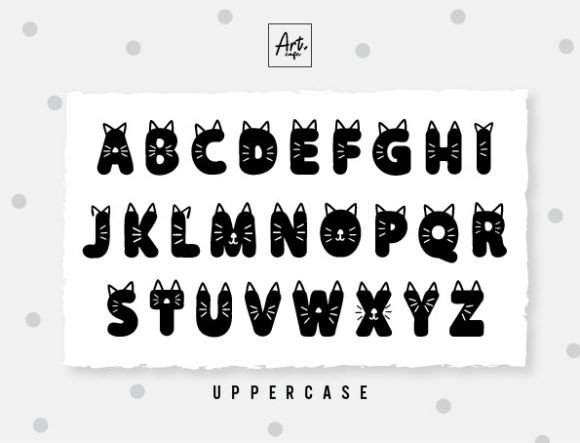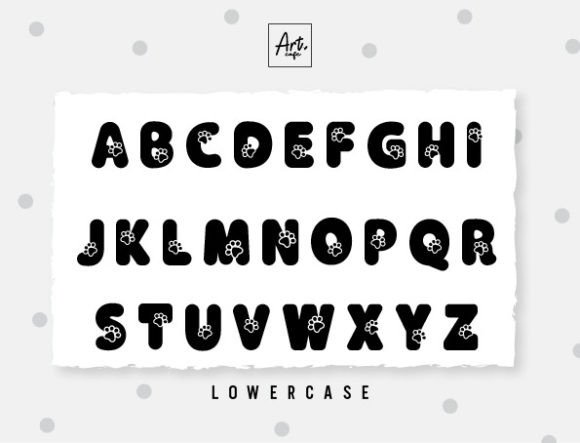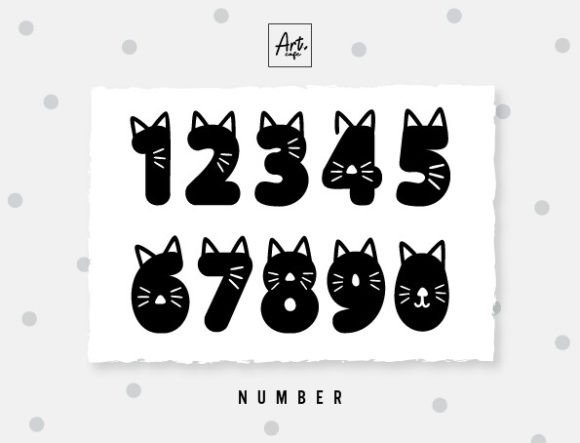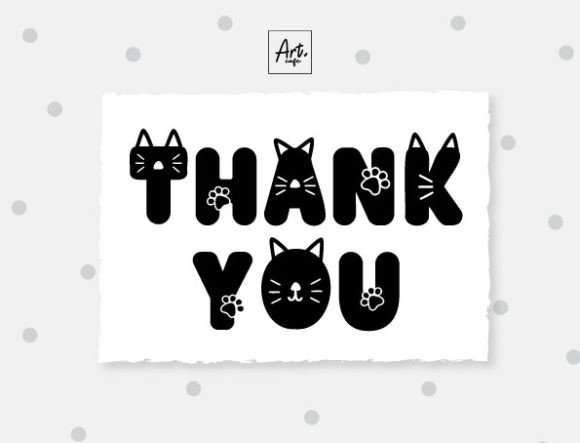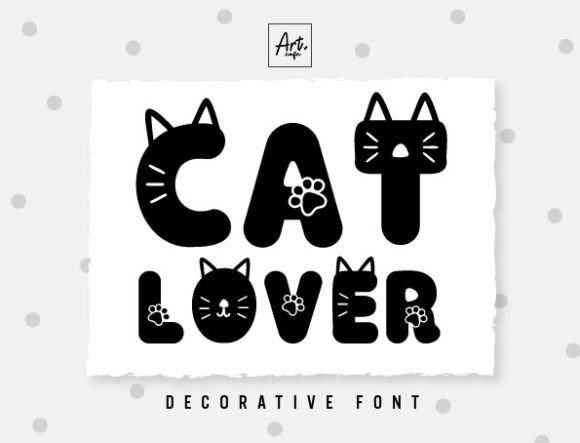
The Purrfect Font: A Deep Dive into Cat Lover Font
I’ll never forget the time I was working on a design project for a client’s cat-themed merchandise. I had all the elements ready – the cute illustrations, the color palette, and the overall aesthetic – but something was missing. The font I was using just didn’t have that playful, whimsical feel that I wanted to convey. That’s when I stumbled upon the Cat Lover font, and it instantly became the perfect fit for the project.
As a designer, I’m always on the lookout for fonts that can add a touch of personality to my projects. And, as a cat lover myself, I was excited to explore a font that was specifically designed with felines in mind. In this article, I’ll share my experience with the Cat Lover font, its features, and how to make the most of it in your design projects.
An Honest Review of Cat Lover Font
What I Love About Cat Lover Font ✨
• ✅ Bold and playful: The Cat Lover font has a bold, yet playful feel that’s perfect for designs that need to make a statement.
• ✅ Wide character support: This font offers support for all characters of the English language, making it versatile for various design projects.
• ✅ Kid-friendly: The font’s cute and whimsical design makes it suitable for kids’ projects, such as posters, stickers, and activity sheets.
• ✅ Multi-purpose: You can use Cat Lover font for a wide range of design projects, from posters and t-shirts to mugs and home decor.
While the Cat Lover font is a great addition to any design project, there are a few things to keep in mind:
• ⚠️ Limited use in formal designs: Due to its playful nature, the Cat Lover font might not be the best fit for formal designs or projects that require a more professional tone.
• ⚠️ Glyph support: While the font offers wide character support, some special characters or glyphs might not be available or might require additional setup.
The Backstory Behind Cat Lover Font
The Cat Lover font was designed with cat lovers in mind. The creator, a fellow feline enthusiast, wanted to design a font that would capture the playful, affectionate nature of cats. With its bold, whimsical design, the Cat Lover font has become a popular choice among designers and cat lovers alike.
Q: What type of projects is Cat Lover font suitable for?
A: The Cat Lover font is suitable for a wide range of design projects, including posters, t-shirts, mugs, kids’ projects, planners, stickers, and home decor.
Q: Does Cat Lover font support OpenType features?
A: Yes, the Cat Lover font supports OpenType features, including glyphs and stylistic alternates.
Q: Is Cat Lover font available in different styles or weights?
A: The Cat Lover font is available in a single style, but its bold design makes it versatile for various design projects.